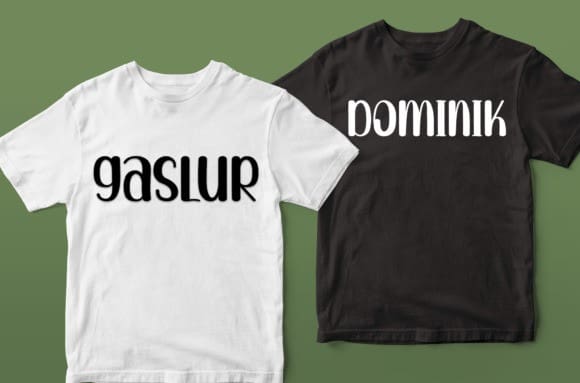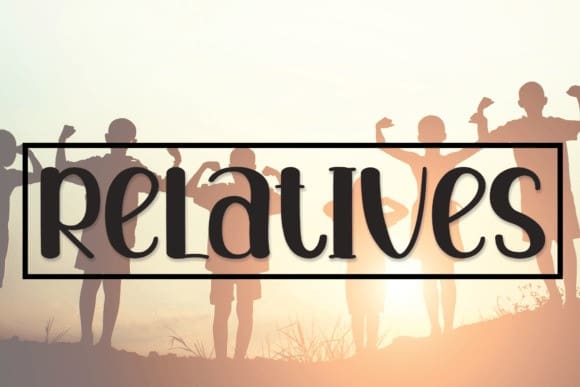
Relatives Playful Font
Relatives Playful Font is a sweet and friendly handwritten font. Fun and relaxed, this font is ideal for writing wedding invitations, cards, or any other design that might need a lovely touch!